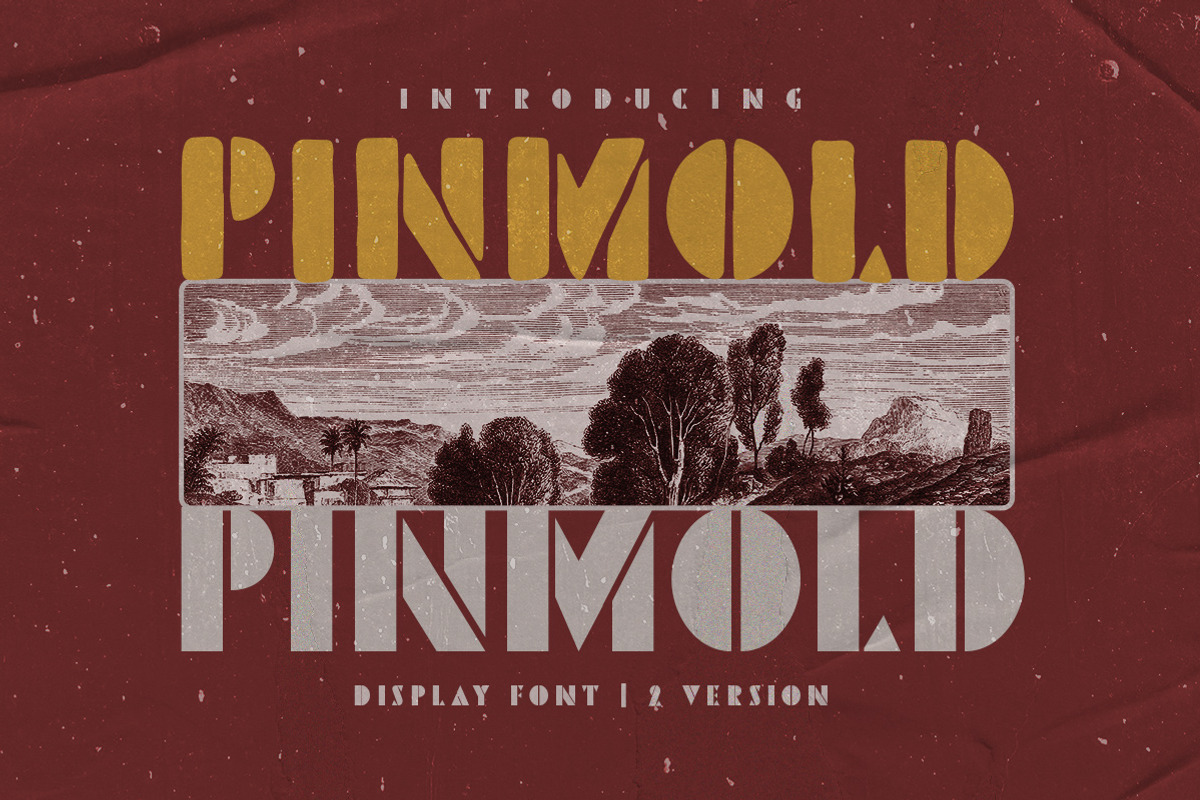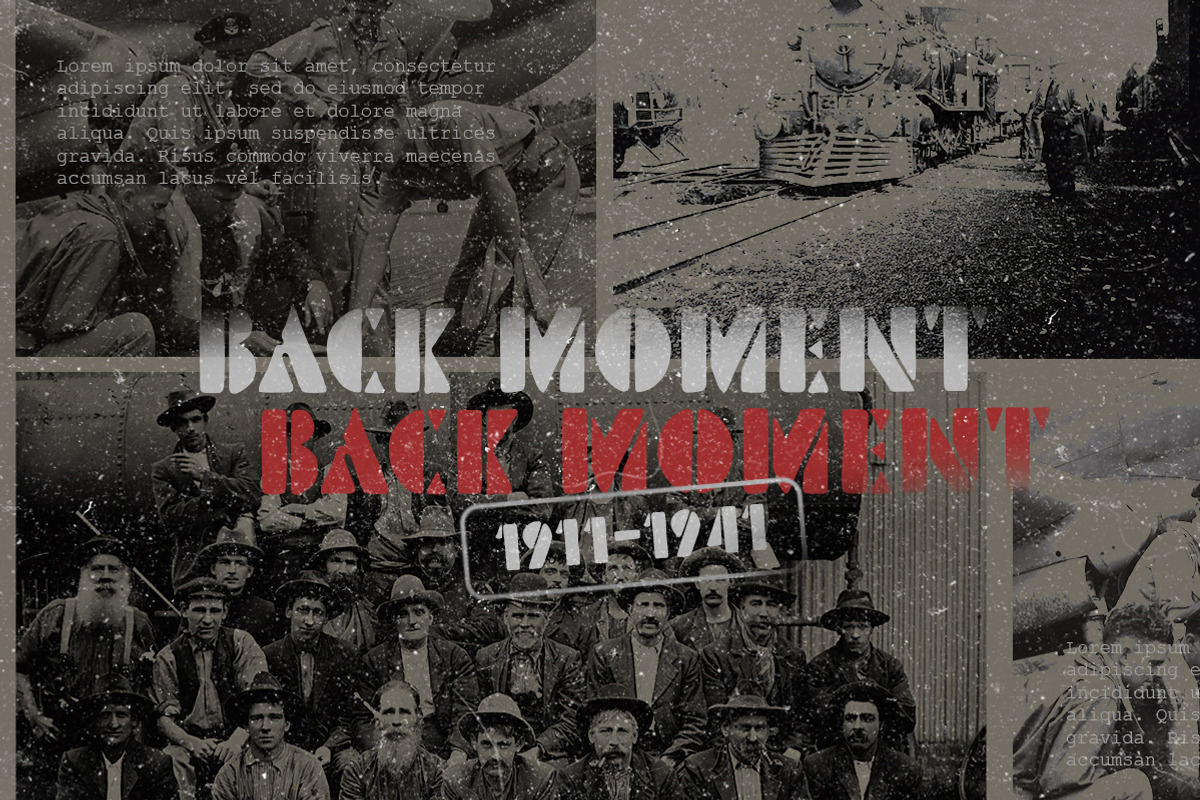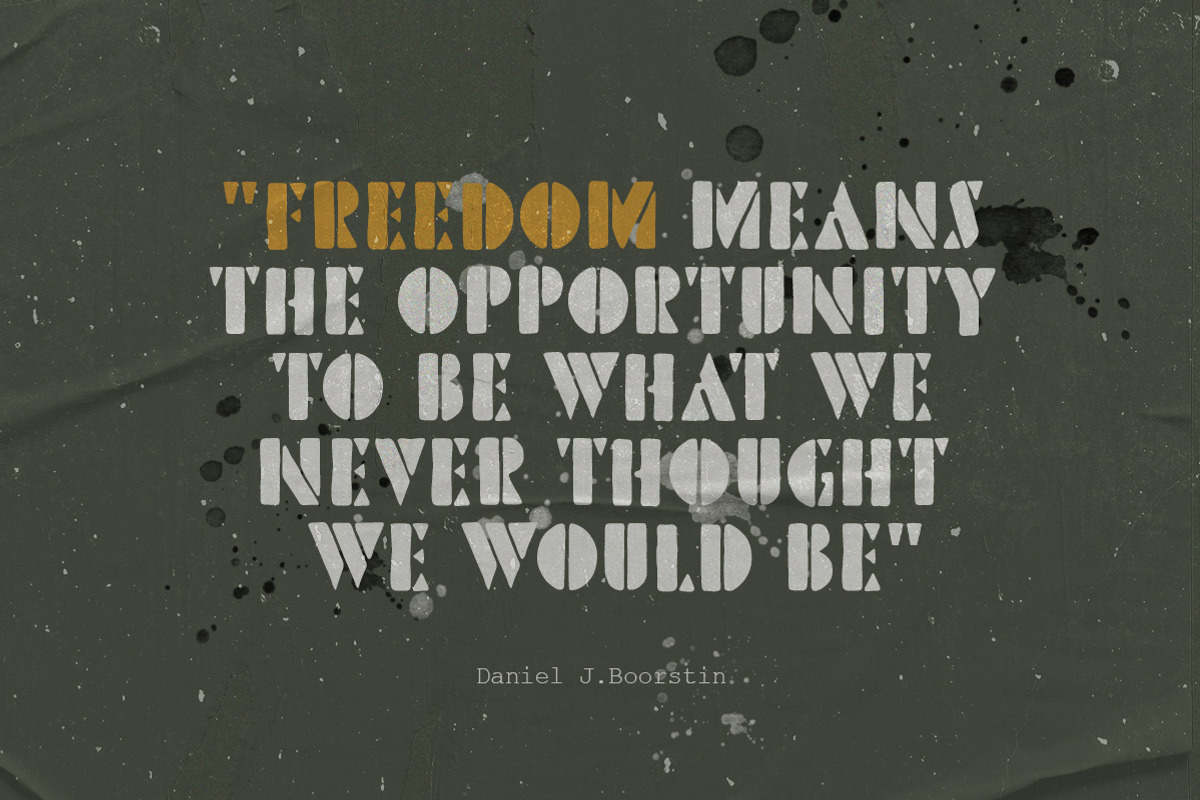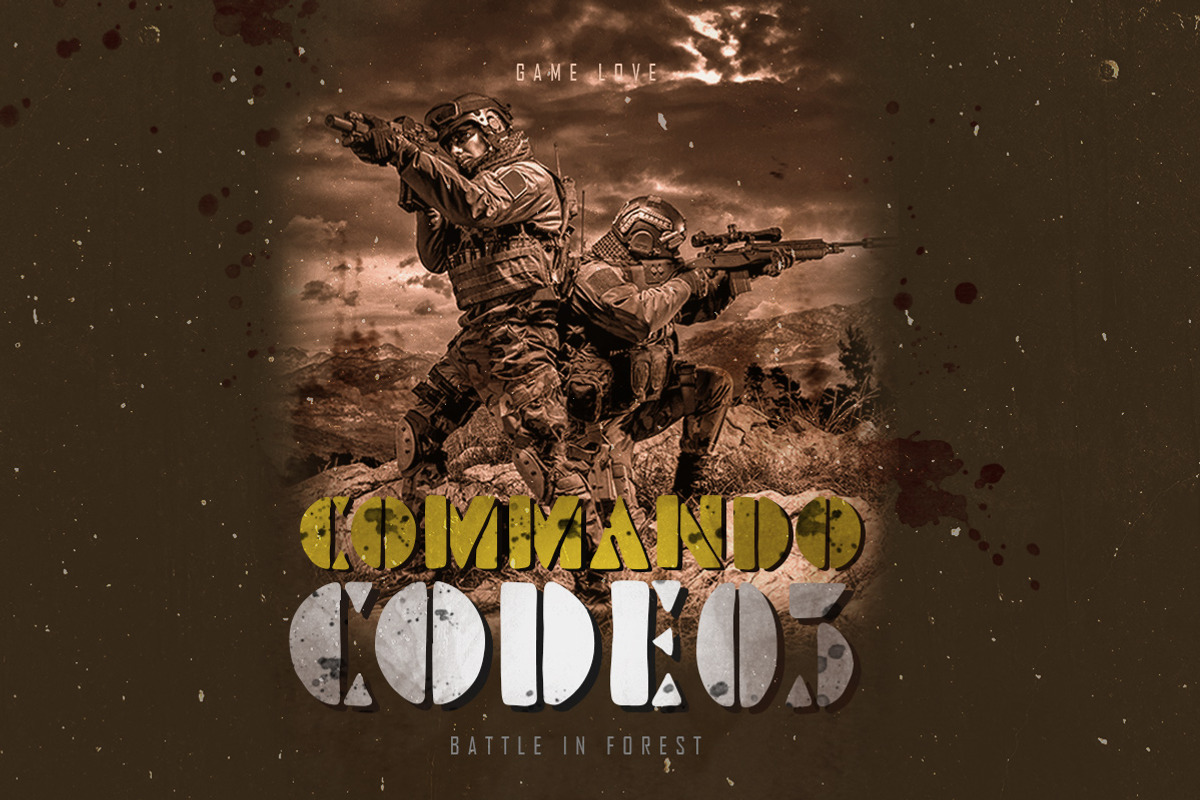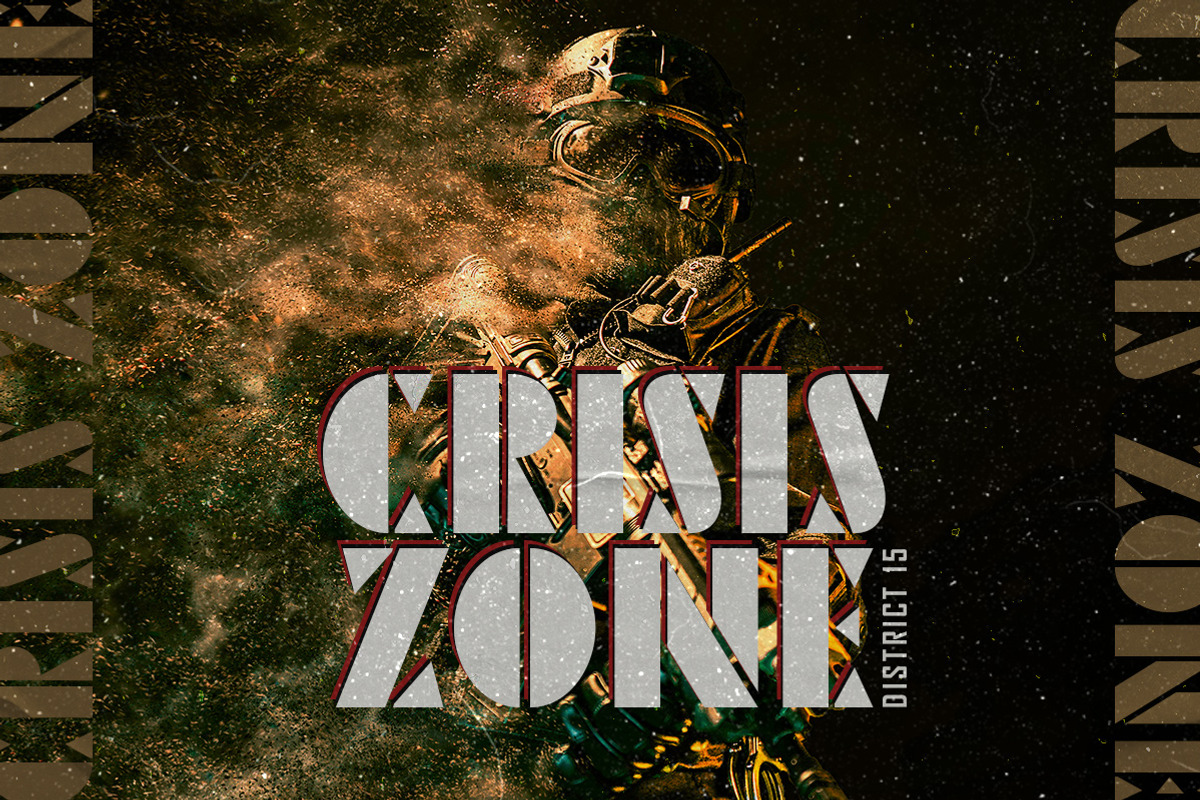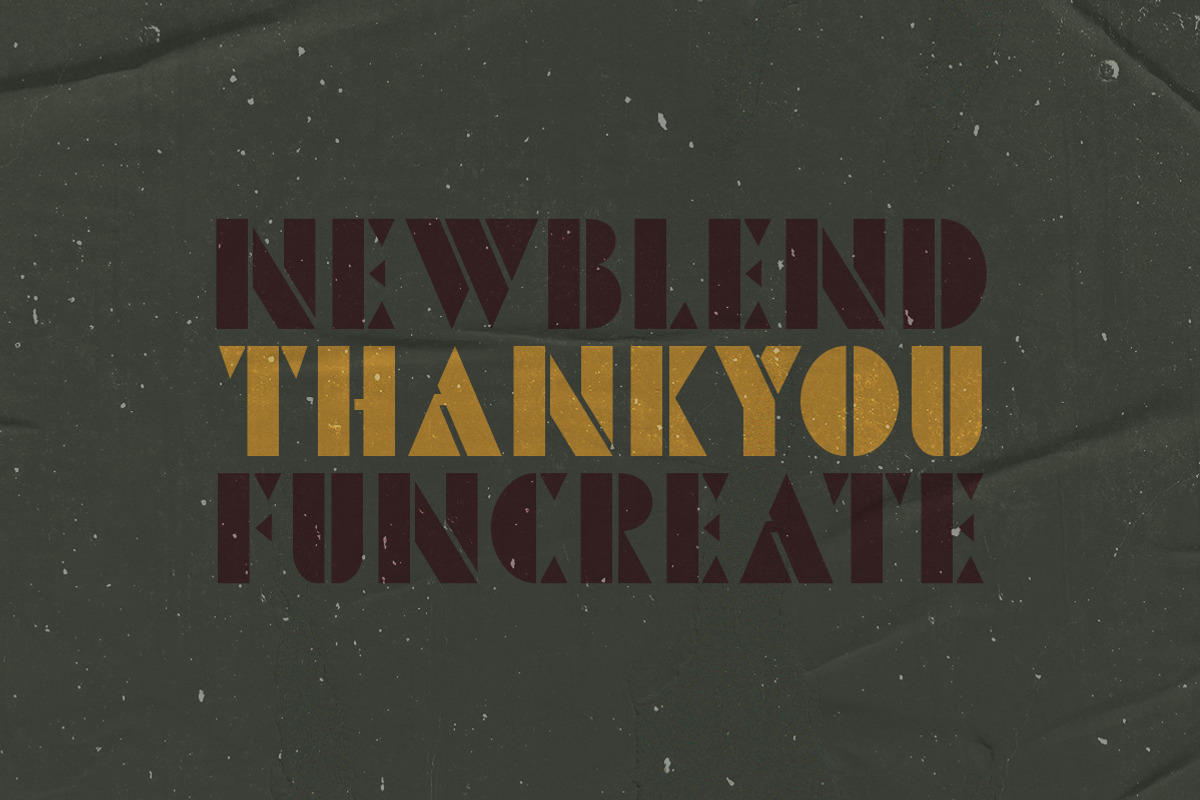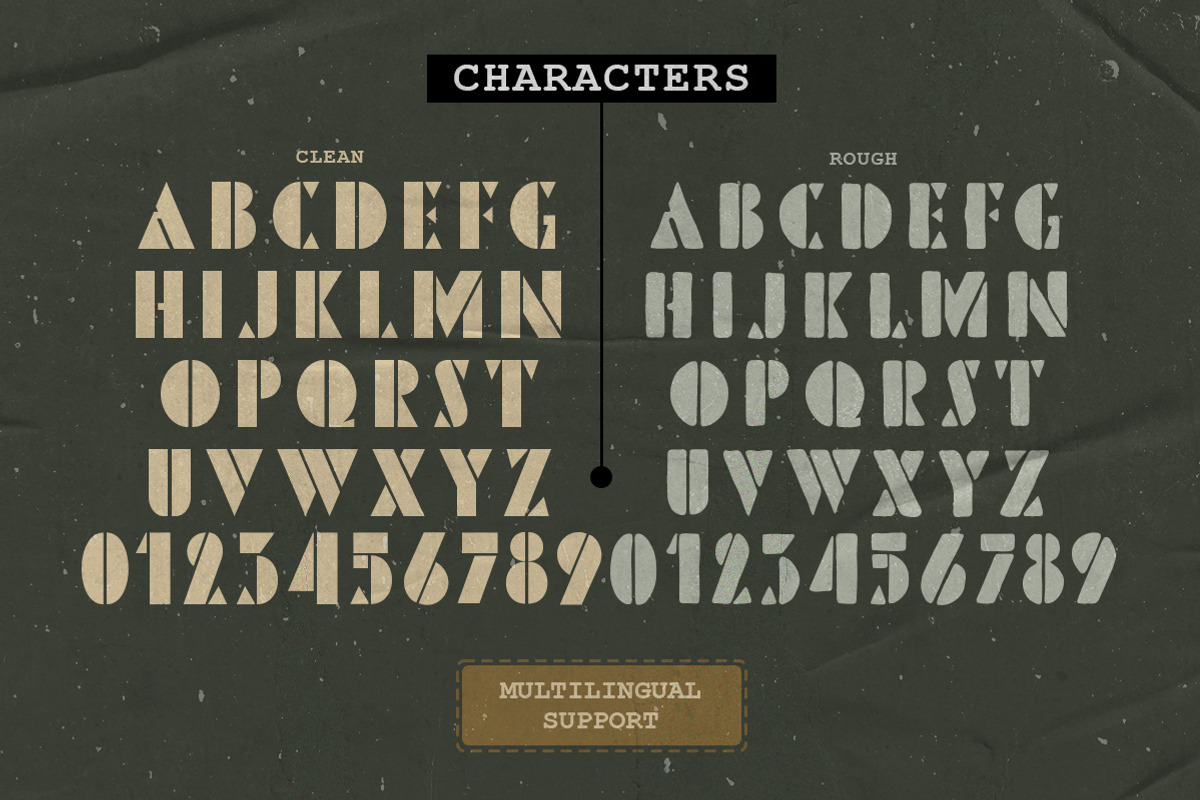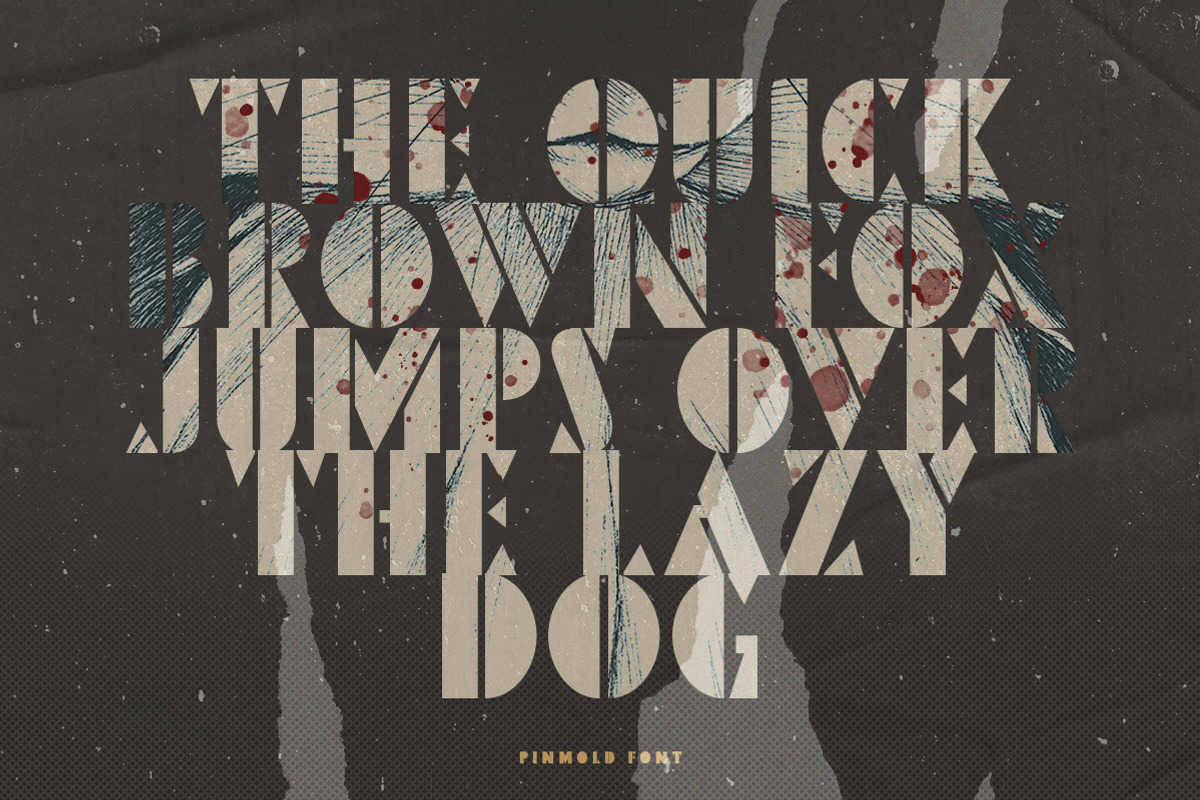
Pinmold - Modern Stencil Font
Introducing, Pinmold, a modern stencil display font suitable for military theme design, urban street style, or even for gaming title for a war game. This type of font also perfectly made to be applied especially in logo, headline, signage and the other various formal forms such as apparel, novel, label / packaging, and various advertising purposes.
- regular and rough version